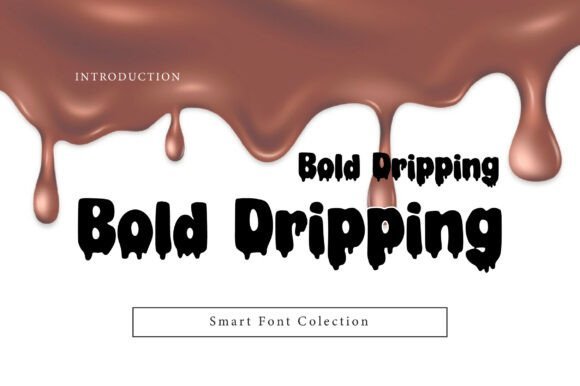
The Birth of a Chilling Typeface
Remember the moment when you stumbled upon a design that sent shivers down your spine? Perhaps it was a haunting album cover, a spine-chilling movie poster, or a mysterious social media post that left you wanting more. For designers, this moment of creative spark is what drives us to push the boundaries of typography and visual storytelling. One typeface that embodies this spirit is the Bold Dripping Font, a spooky and bold display font designed specifically for horror, Halloween, and creepy-themed typography.
This unique typeface features heavy, rounded letterforms that appear to be melting or dripping down the page, making it the ultimate choice for designers seeking to create a high-impact, edgy look. With its tactile quality and versatility, the Bold Dripping Font is a valuable addition to any designer’s toolkit, allowing them to craft bold, attention-grabbing designs that leave a lasting impression on their audience.
Bold Dripping Font Key Features
- Font Family: A unique, hand-drawn font with bold and dripping effects, ideal for titles and headings.
- Character Count: Approximately 300 characters, including uppercase and lowercase letters, numbers, and punctuation marks.
- Unique Characteristics: Distinctive dripping effects, bold lines, and a hand-drawn feel that adds a touch of elegance and sophistication to any design.
Bold Dripping Font Review
Overall, I’m quite impressed with the Bold Dripping Font. ✨ The font’s unique design effectively conveys a sense of drama and elegance. The combination of bold lines and drips creates a visually striking effect that can add a touch of sophistication to any design project.
- The font’s scalability is impressive, looking great in both small and large sizes.
- The bold lines add a sense of weight and importance to the font, making it perfect for headings and titles.
- The drips add a touch of whimsy and personality to the font, making it more engaging and memorable.
- The font may not be the best choice for body text, as the bold lines and drips can make it difficult to read in large quantities.
- The font may not be suitable for projects where a clean and minimalist design is required.
- The font’s uniqueness can be both a blessing and a curse, as it may not appeal to everyone’s taste.
Overall, I think the Bold Dripping Font is a great addition to any designer’s toolkit, but it’s essential to use it judiciously and consider the project’s specific needs and audience.
Tips for Getting the Most Out of Bold Dripping Font
Use the Bold Dripping Font to add a dramatic and eye-catching effect to your text. It pairs well with bold colors and striking graphics. To get the most out of it, use it sparingly and in moderation to avoid overwhelming your design.
The Bold Dripping Font is ideal for:
- Creating attention-grabbing headlines and titles.
- Adding a touch of drama and flair to your text.
- Designing bold and striking graphics and logos.